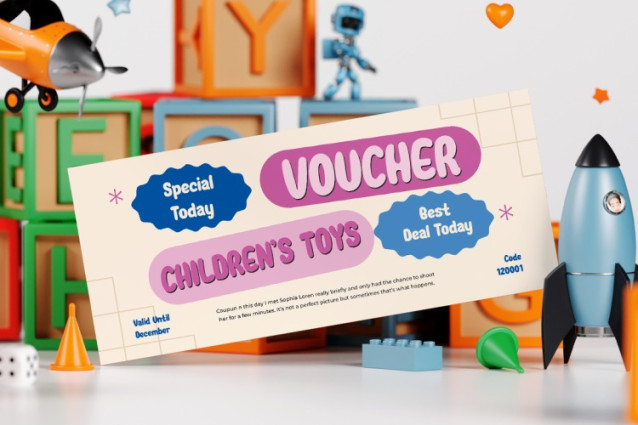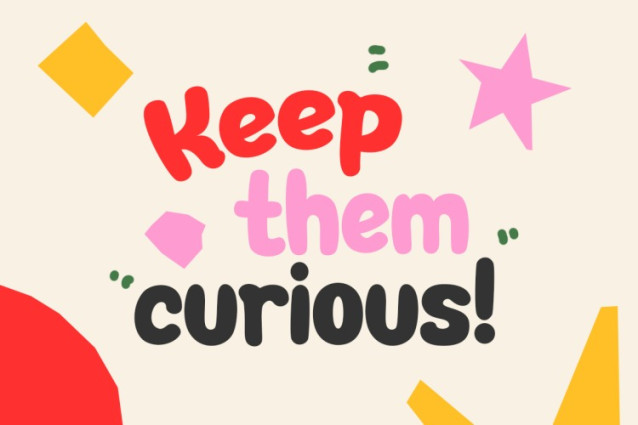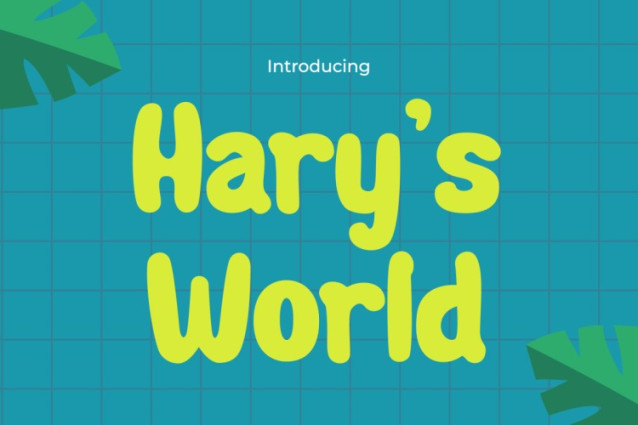
Harys World Font is a cheerful and inviting typeface created specifically for young audiences and playful projects. It features smooth, rounded letters with a friendly and positive appearance. Additionally, its hand-drawn style adds natural charm and whimsy, making it warm and approachable. Moreover, the bold yet simple letterforms ensure great readability while maintaining a fun and vibrant look.
Furthermore, this font pairs well with bright, colorful themes and brings a playful touch to any layout. Whether you are designing for children’s media, educational materials, or branding projects, Harys World adapts beautifully to your needs. It strikes a perfect balance between style and clarity, making it effective for both print and digital formats.
Overall, Kids font Harys World combines creativity and functionality, enhancing any project with a joyful and lively personality.